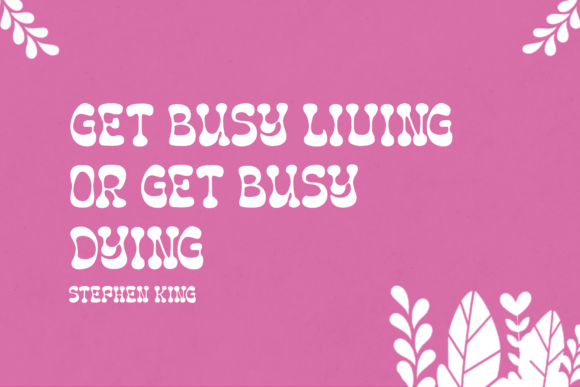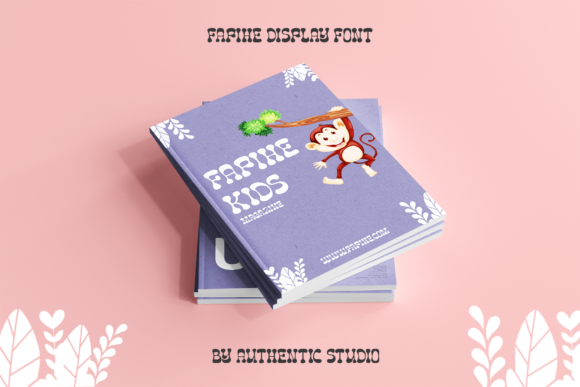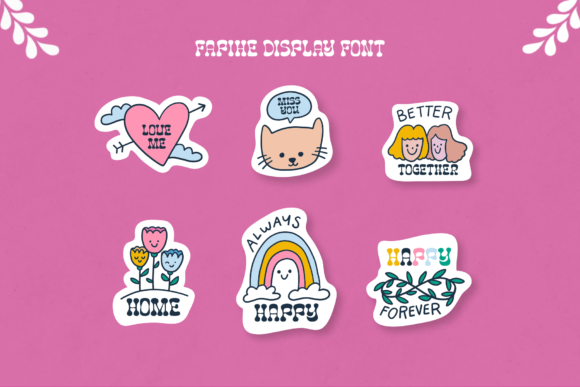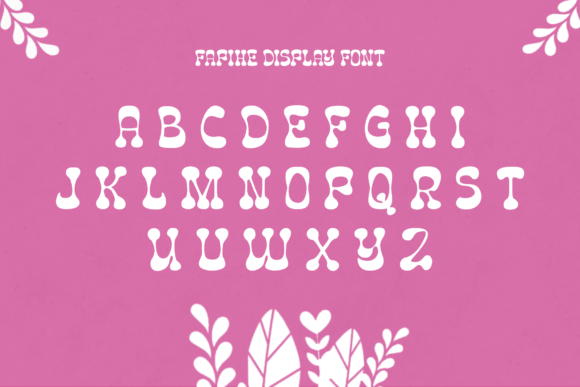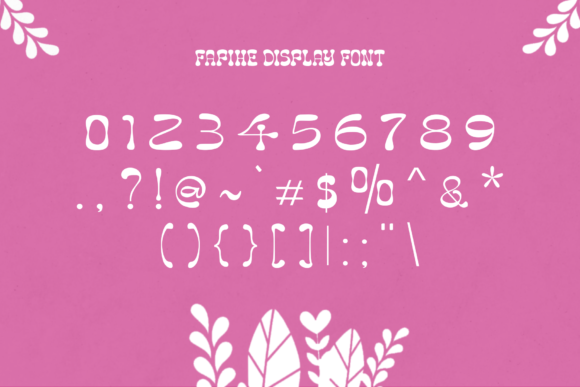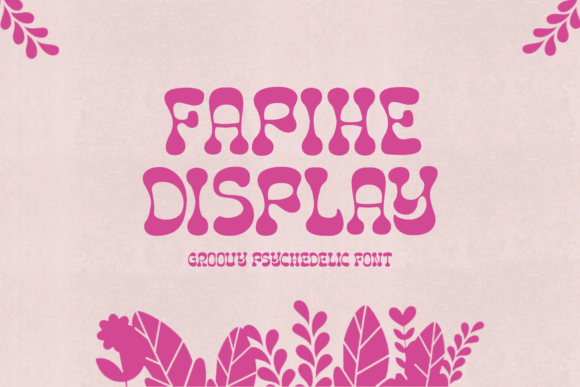
Fapihe Font: Elevate Your Designs with a Wavy, Chic, and Retro Flair
Are you on the hunt for a font that adds a touch of whimsy and sophistication to your designs? Look no further than Fapihe Font, a stunning wavy, chic, and retro-styled display font that’s perfect for crafty ideas, letterheads, titles, and stationery. In this article, we’ll dive into the world of Fapihe Font, exploring its unique features, uses, and benefits for designers and crafters alike.
The Unique Charm of Fapihe Font
Fapihe Font boasts an original look that’s sure to capture attention. Its wavy, flowing lines evoke a sense of nostalgia, reminiscent of classic retro designs from the 1950s and 60s. Yet, its chic and modern twist makes it suitable for a wide range of applications, from vintage-inspired branding to contemporary stationery. Whether you’re looking to add a touch of playfulness or sophistication to your designs, Fapihe Font is an excellent choice.
Key Features of Fapihe Font
- Wavy and Fluid Lines: Fapihe Font’s distinctive wavy lines add a dynamic, hand-drawn feel to your designs.
- Retro-Chic Aesthetic: Inspired by classic designs from the mid-20th century, Fapihe Font brings a touch of nostalgia to your projects.
- Display Font: Designed specifically for display purposes, Fapihe Font is perfect for headlines, titles, and short text passages.
- Crafty and Versatile: Suitable for a wide range of applications, including letterheads, stationery, posters, and more.
Uses for Fapihe Font
Fapihe Font’s versatility makes it an excellent addition to any designer’s toolkit. Here are some ideas to get you started:
- Letterheads and Stationery: Add a touch of elegance and whimsy to your business correspondence with Fapihe Font.
- Posters and Flyers: Create eye-catching promotional materials that showcase your brand’s personality.
- Branding and Logo Design: Use Fapihe Font to create a unique and memorable brand identity.
- Digital and Print Media: Fapihe Font is suitable for both digital and print applications, including social media graphics, magazines, and more.
- Unique Look: Stand out from the crowd with Fapihe Font’s distinctive, wavy lines and retro-chic aesthetic.
In conclusion, Fapihe Font is a fantastic addition to any designer’s toolkit. Its unique blend of wavy, chic, and retro elements makes it perfect for a wide range of applications, from letterheads and stationery to posters and branding. With its ease of use, high-quality design, and versatility, Fapihe Font is sure to become a favorite among designers and crafters alike. So why wait? Download Fapihe Font today and start elevating your designs with its distinctive, eye-catching charm!